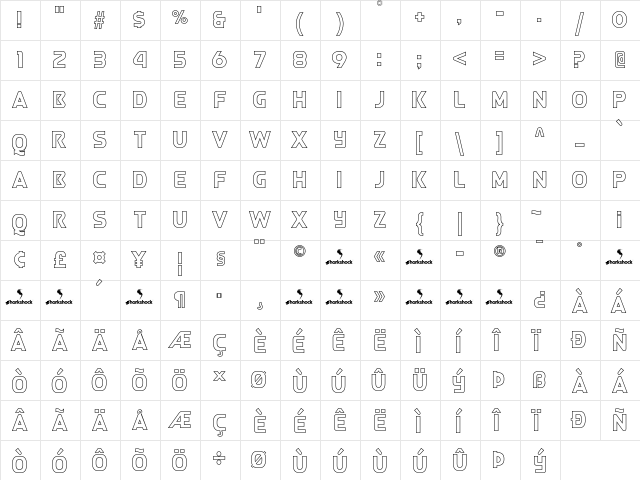
Queen of Camelot Outlines Outlines
Design Context for Queen of Camelot Outlines Typeface
Queen of Camelot Outlines is built around its visual character rather than neutral utility — its distinctive forms are designed to make an impression at display sizes.
Font Pairing: Pair with a clean neutral sans-serif for body copy to let Queen of Camelot Outlines's character lead without overwhelming the composition.
Pro Tip: Treat Queen of Camelot Outlines as the centrepiece of your typographic hierarchy. One strong heading set in a decorative face can carry an entire layout.